14 Best Modern Fonts for Professional Designers (Serif, Sans-Serif & Script) – 2025
Professional designers always maintain their own unique font collections. These collections constantly evolve and grow based on popular trends and projects.
We want to offer you some options to upgrade your font collection with more professional and high-quality choices. In this article, we’ve carefully curated a selection of the best modern fonts you can use for your creative projects and client work.
This collection includes Serif, Script, and Sans-Serif fonts in a variety of design styles. We guarantee you’ll find at least a few fonts in our list worth downloading. Take a look.
1、
If you’re looking for a modern-designed font for logos, website headers, and poster titles, this font is perfect for you. Its smooth letter design with curved edges gives it a unique identity. It comes in two styles: regular and outlined.
2、
The tall and narrow design of this font makes it one of the best choices for creating bold titles and headings for all kinds of print and digital designs. It comes in multiple formats, including SVG and WebFont versions.
3、
Ace Sans is a complete Sans-Serif font family. It includes 8 different weights, ranging from thin to extra bold, allowing you to mix and match various weights to create standout headlines and use it for body text as well.
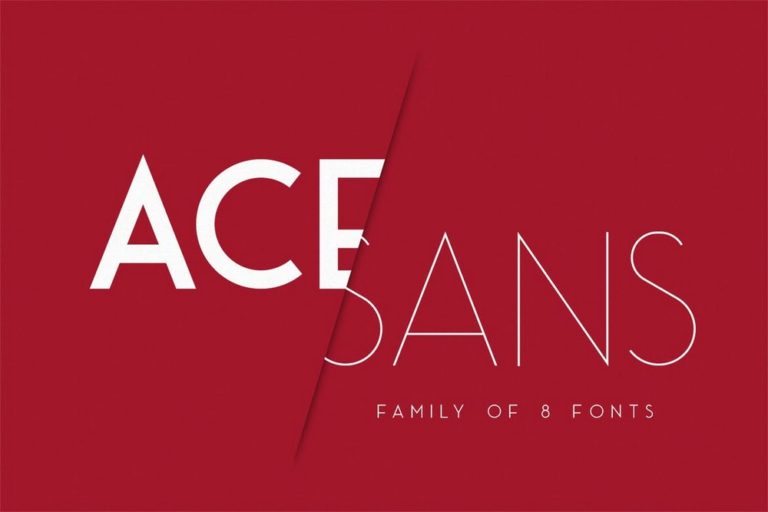
4、
The sleek, thin design of this Sans-Serif font gives it an elegant look that stands out from others on our list. It’s ideal for designing logos, titles, and headings for modern businesses and professional projects. The font comes in 2 weights with matching italic versions.
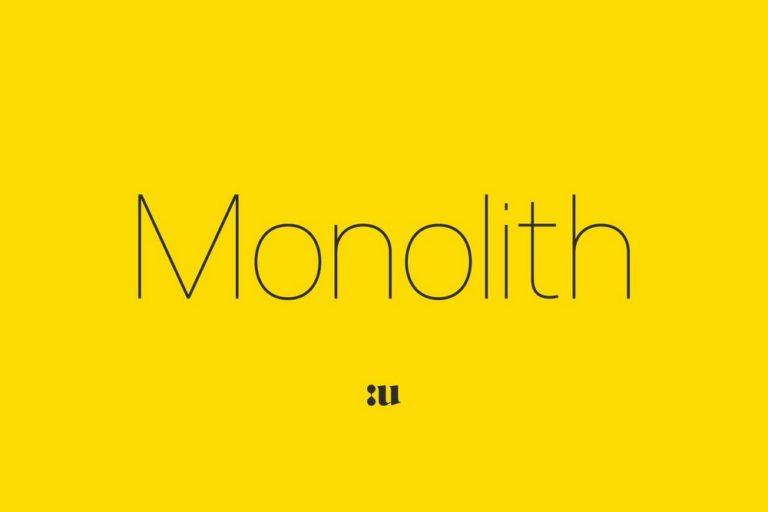
5、
Dastend is a stylish Script font perfect for various print and digital designs. It’s especially suitable for greeting cards, business cards, and social media posts. The font includes both uppercase and lowercase letters.
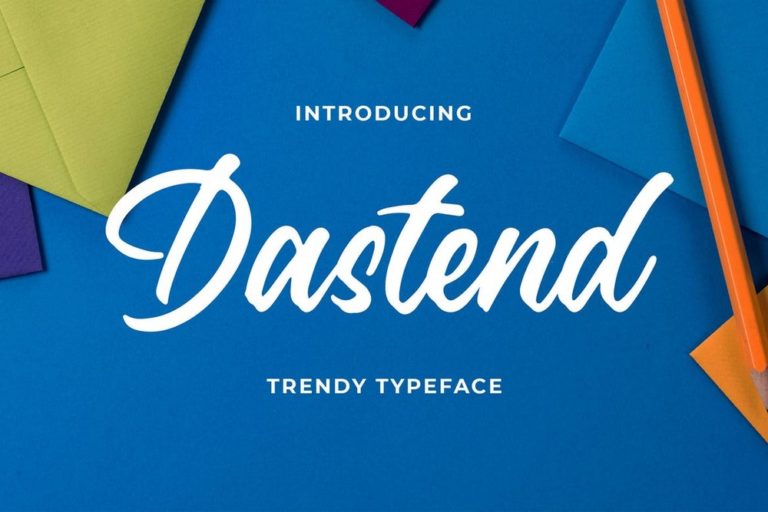
6、
At first glance, this font will remind you of popular lifestyle brands and logos. That’s because it features an elegant look commonly seen in modern designs. It’s great for logos, signage, labels, and more.
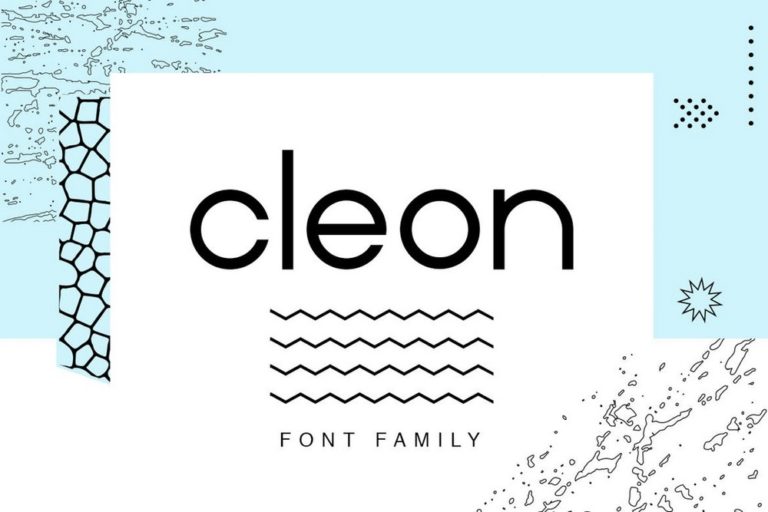
7、
If you’re working on a fun and creative design project, this stylish Sans-Serif font will definitely add character to your work. It comes with a beautiful and playful design that includes both uppercase and lowercase letters. It’s perfect for greeting cards and posters.
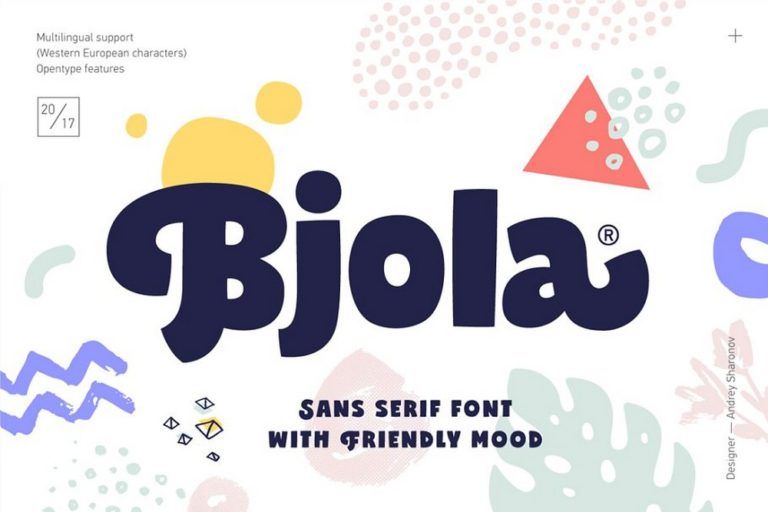
8、
An elegant Script font with a modern design—just what you need for greeting cards, business cards, social media posts, and more. The font comes in multiple weights, from thin to bold, and includes ligatures and swashes.
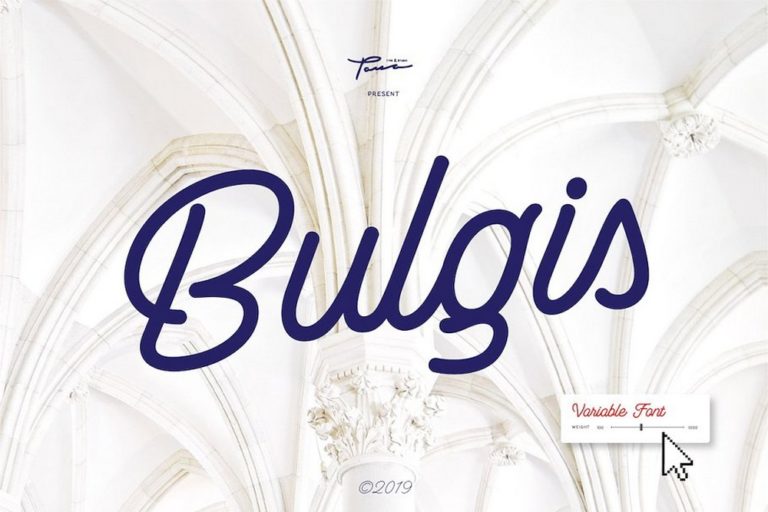
9、
This unique font blends modern and classic Art Deco elements. It features an all-caps design and is ideal for headlines and titles on modern posters, flyers, and book or CD covers.
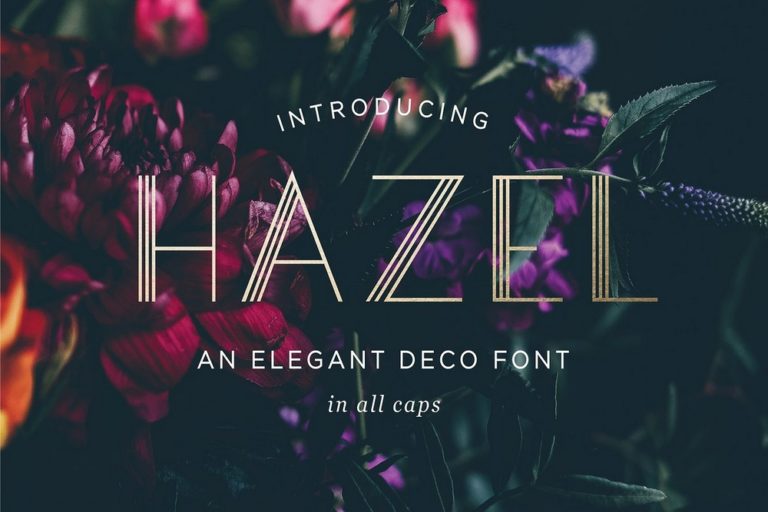
10、
Visby CF is a simple font family without extravagant designs, curves, or rounded edges. It’s a clean, modern standard font, making it perfect for body text and improving readability.
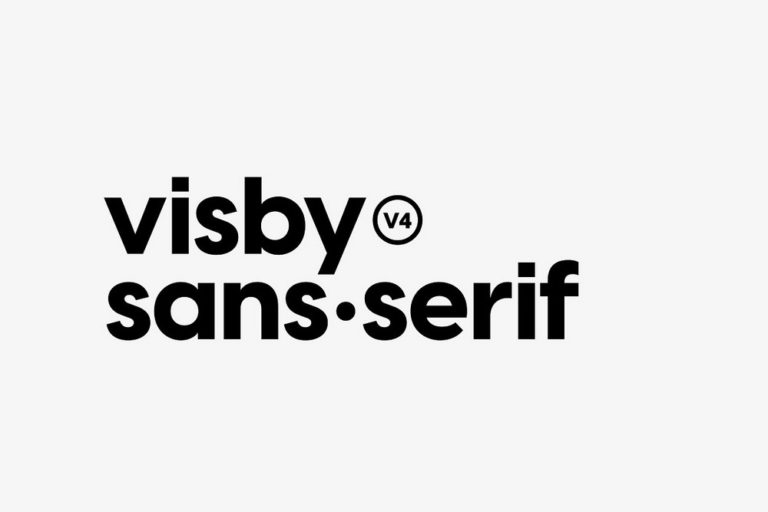
11、
Finding the right font pairings for design projects is a common challenge for designers. But with this font pack, you won’t have to worry—it includes a perfectly matched Serif and Script handwritten font duo.
12、
This modern font is great for designing unique logos and website headers for creative businesses. It even comes with a logo kit featuring 8 editable vector logo templates, giving you a head start in your logo design process.
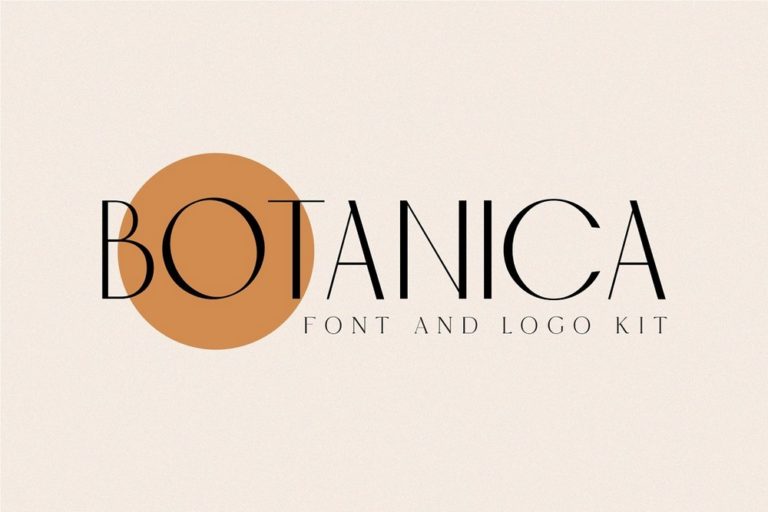
13、
Maxine is an elegant Sans-Serif font that’s perfect for modern logos for creative businesses and agencies. It comes in multiple weights and includes both uppercase and lowercase letters.
14、
If you’re working on photography, fashion, or lifestyle-related projects, this beautiful handwritten font will be incredibly useful. Its unique design fits perfectly with modern lifestyle brands and is also great for business cards and greeting cards.